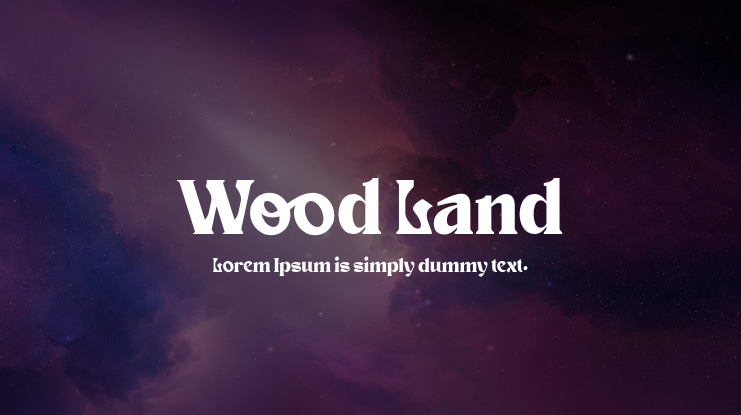
Wood Land Font
Introducing our new release, Wood Land Modern Display Typeface. This typeset is perfect for brand logo, invitations, greeting card, or even any kind of project. With multilingual feature and style variations, this typeface would further enhance the aestethical aspect of your work.Click our website :https://displaytypefont.com/product/wood-land/